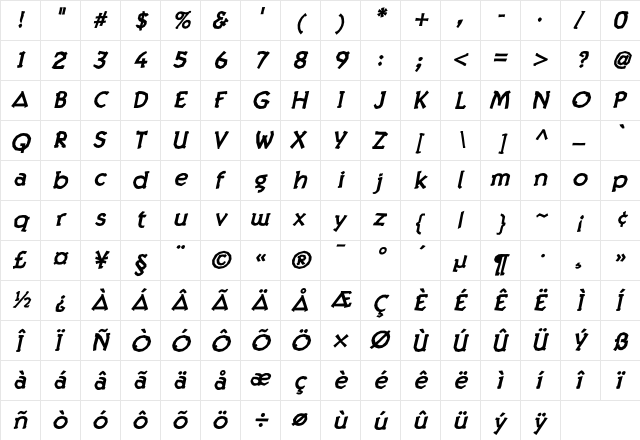
Twig Bold Oblique Regular
Design Context for Twig Bold Oblique Typeface
Twig Bold Oblique is a composed and adaptable typeface that performs quietly and consistently across a wide range of design contexts. The slanted form adds forward momentum and visual energy. The heavy weight commands attention and anchors typographic hierarchies.
Pro Tip: Try Twig Bold Oblique for annotation and caption copy alongside an upright companion — the contrast in angle creates a dynamic but ordered typographic system.